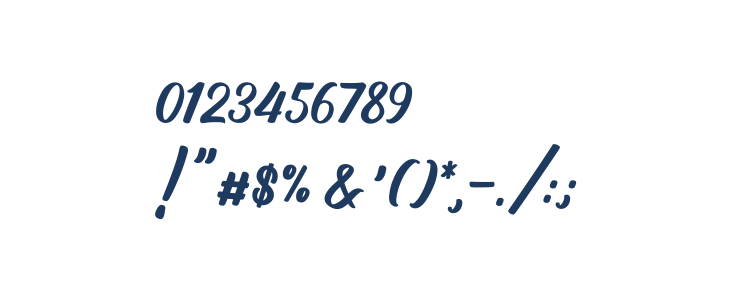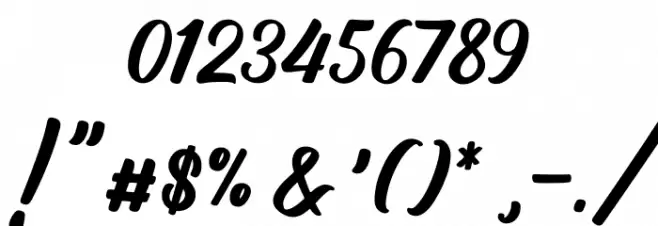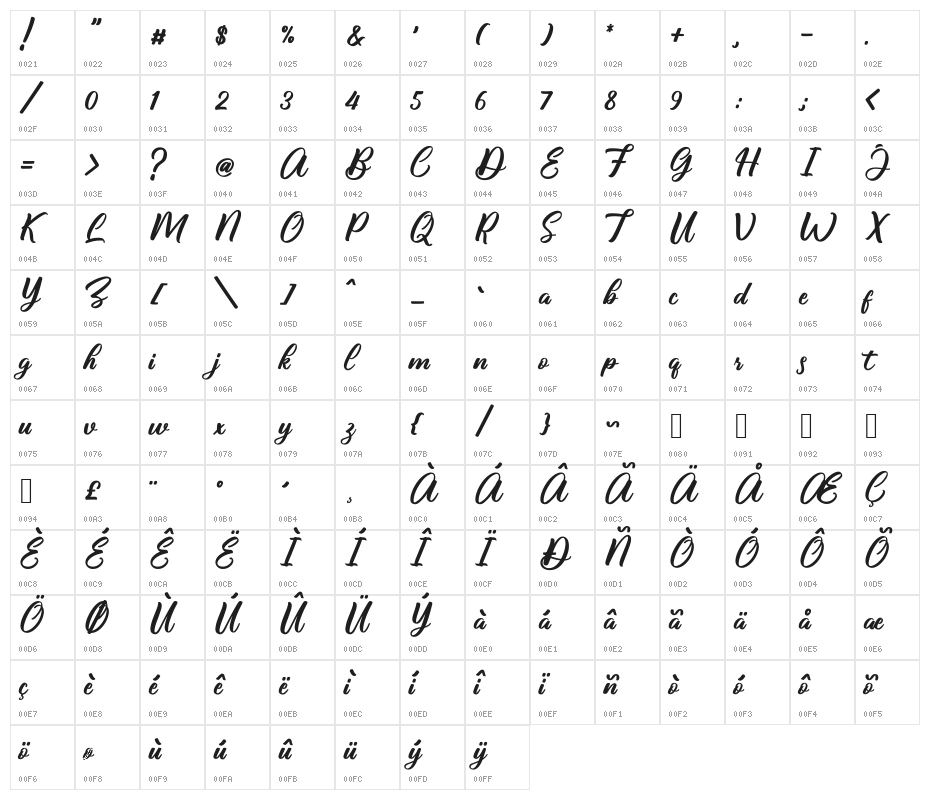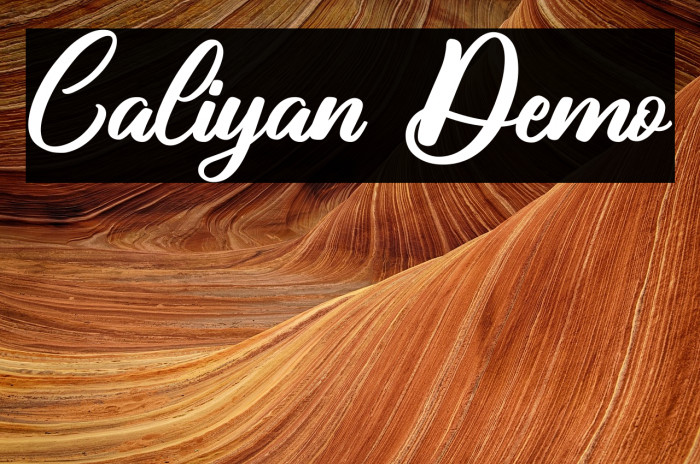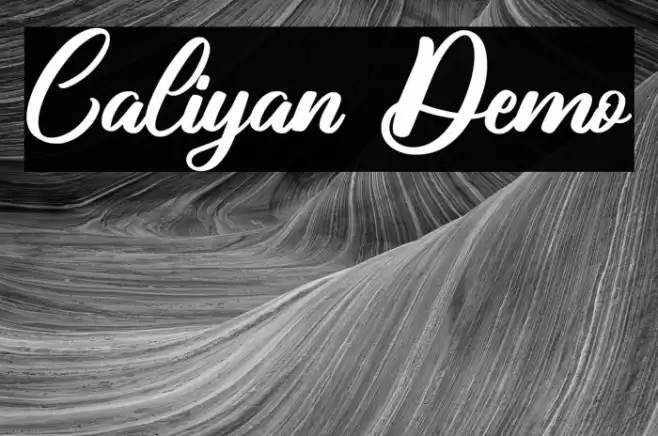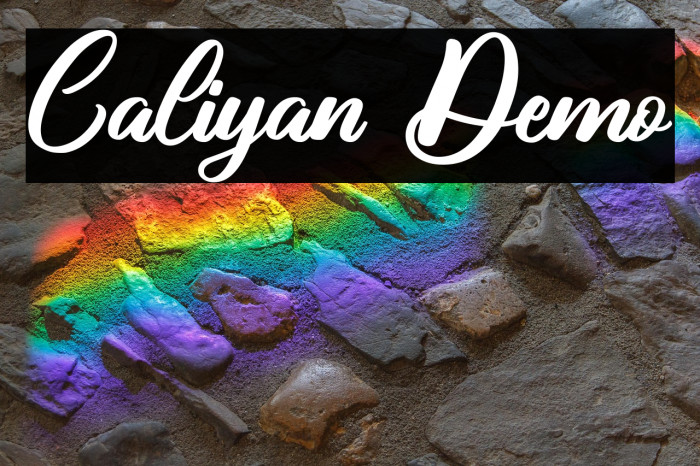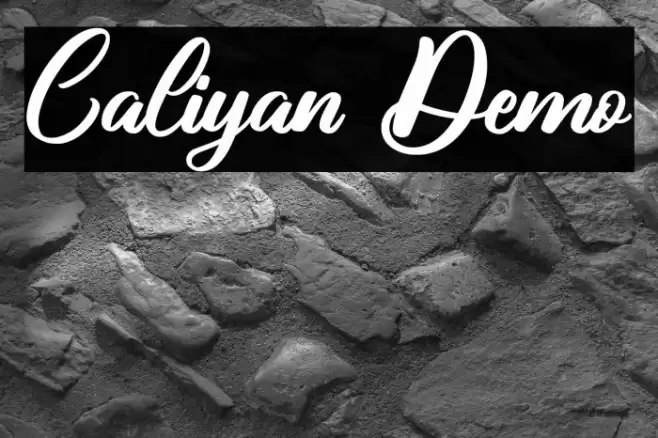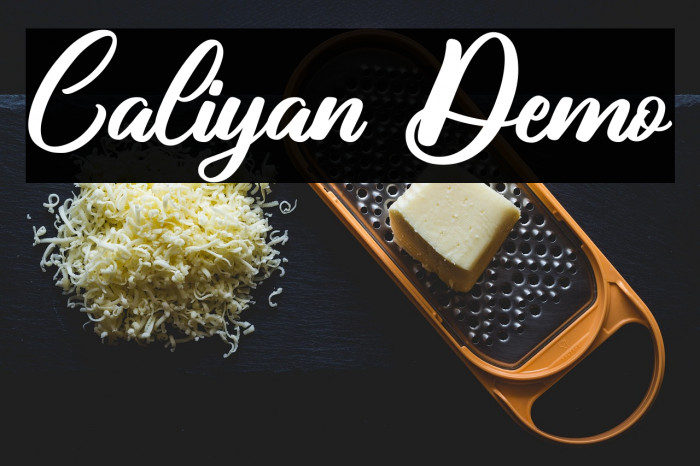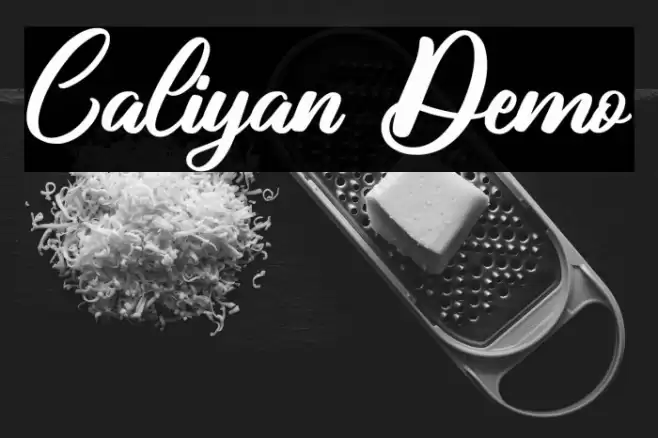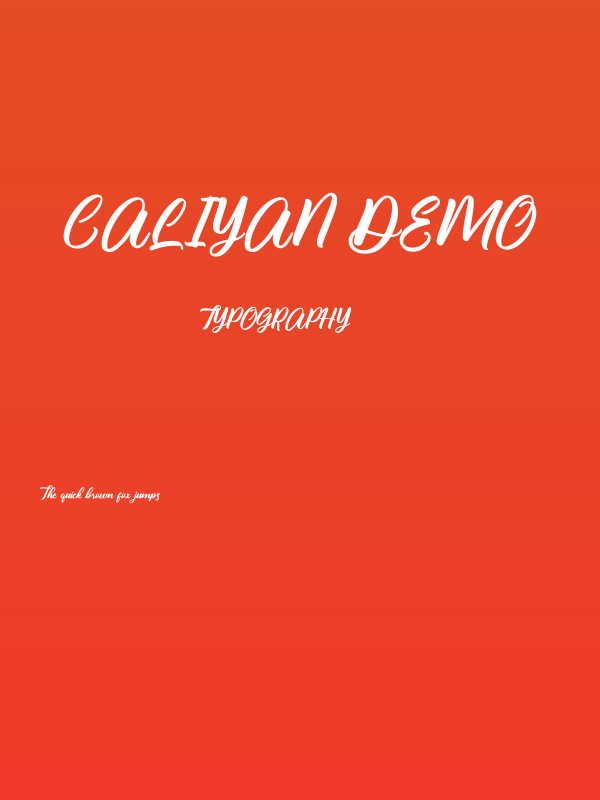
Caliyan Demo Font
Caliyan Demo Description
This font features a flowing, cursive style with a modern twist. The letters are connected, creating a seamless and elegant appearance. It has a playful yet sophisticated look, making it suitable for a variety of creative projects. The uppercase letters are bold and expressive, while the lowercase letters maintain a consistent flow. The numerals are clear and easy to read, complementing the overall style. Special characters are included, enhancing its versatility. The font's design is perfect for adding a personal touch to any project, with its smooth curves and stylish flair.
| Proposed Projects | Ideal for wedding invitations, greeting cards, branding, and social media graphics. |